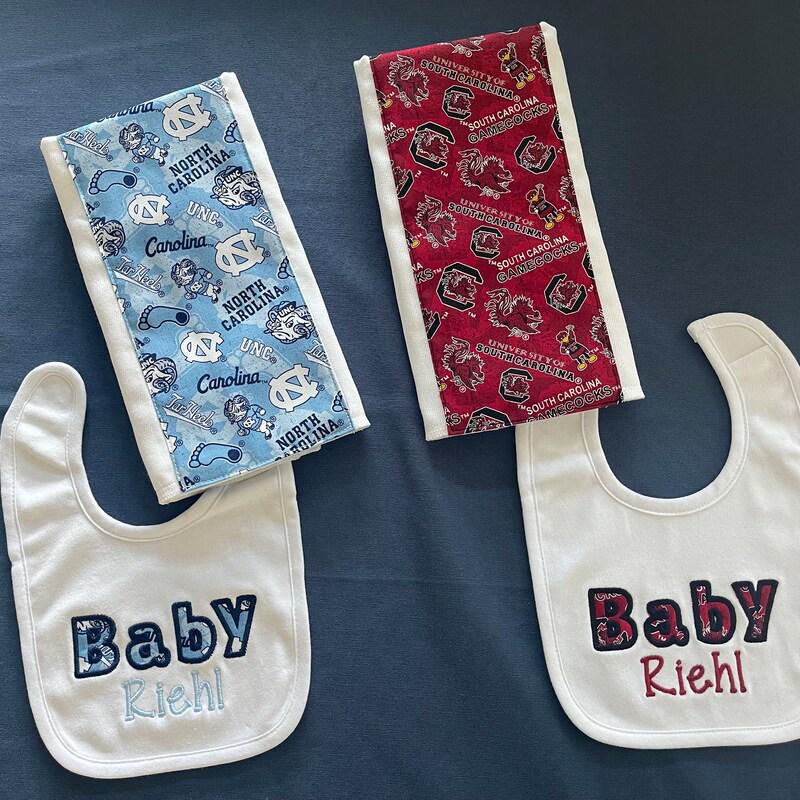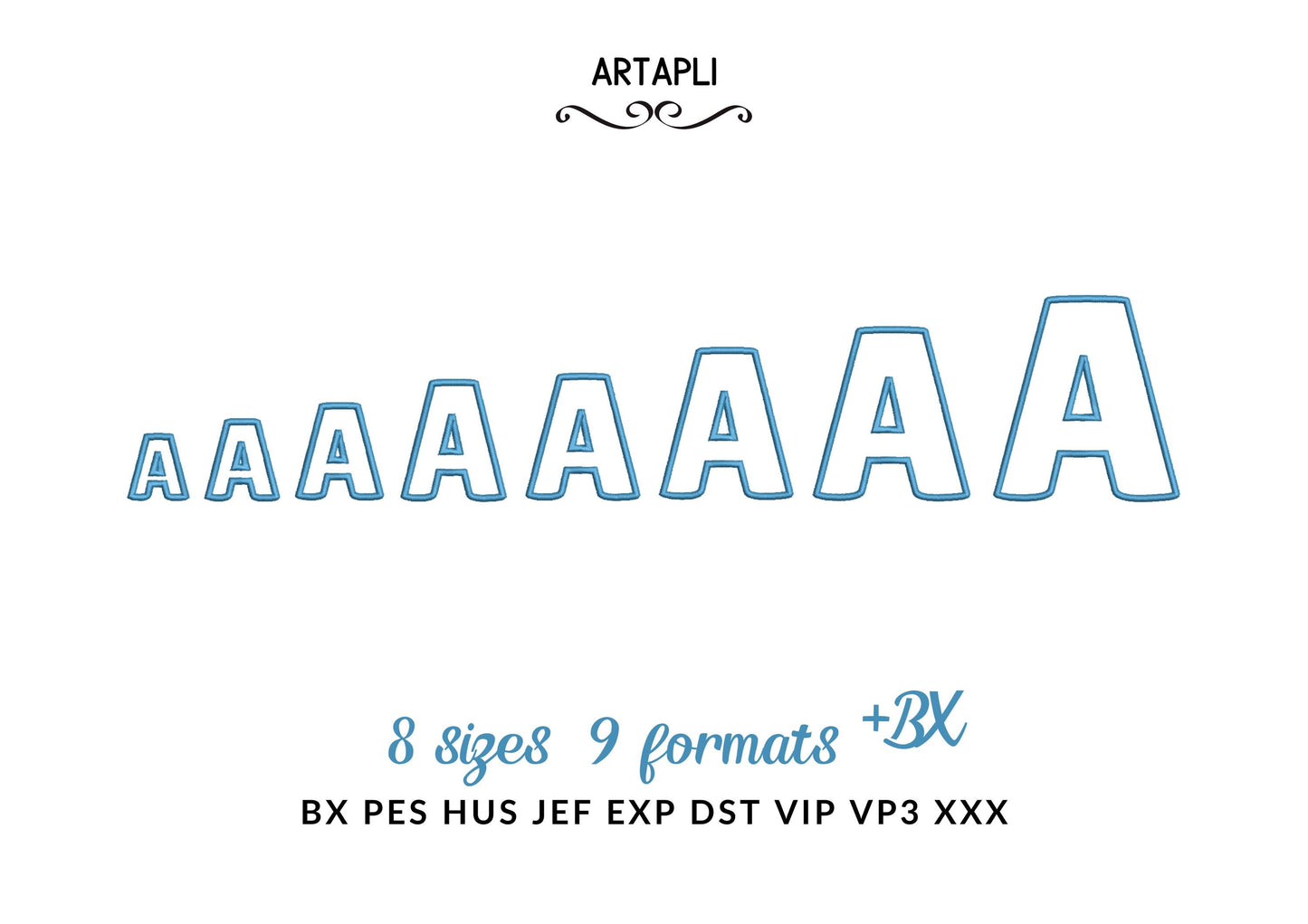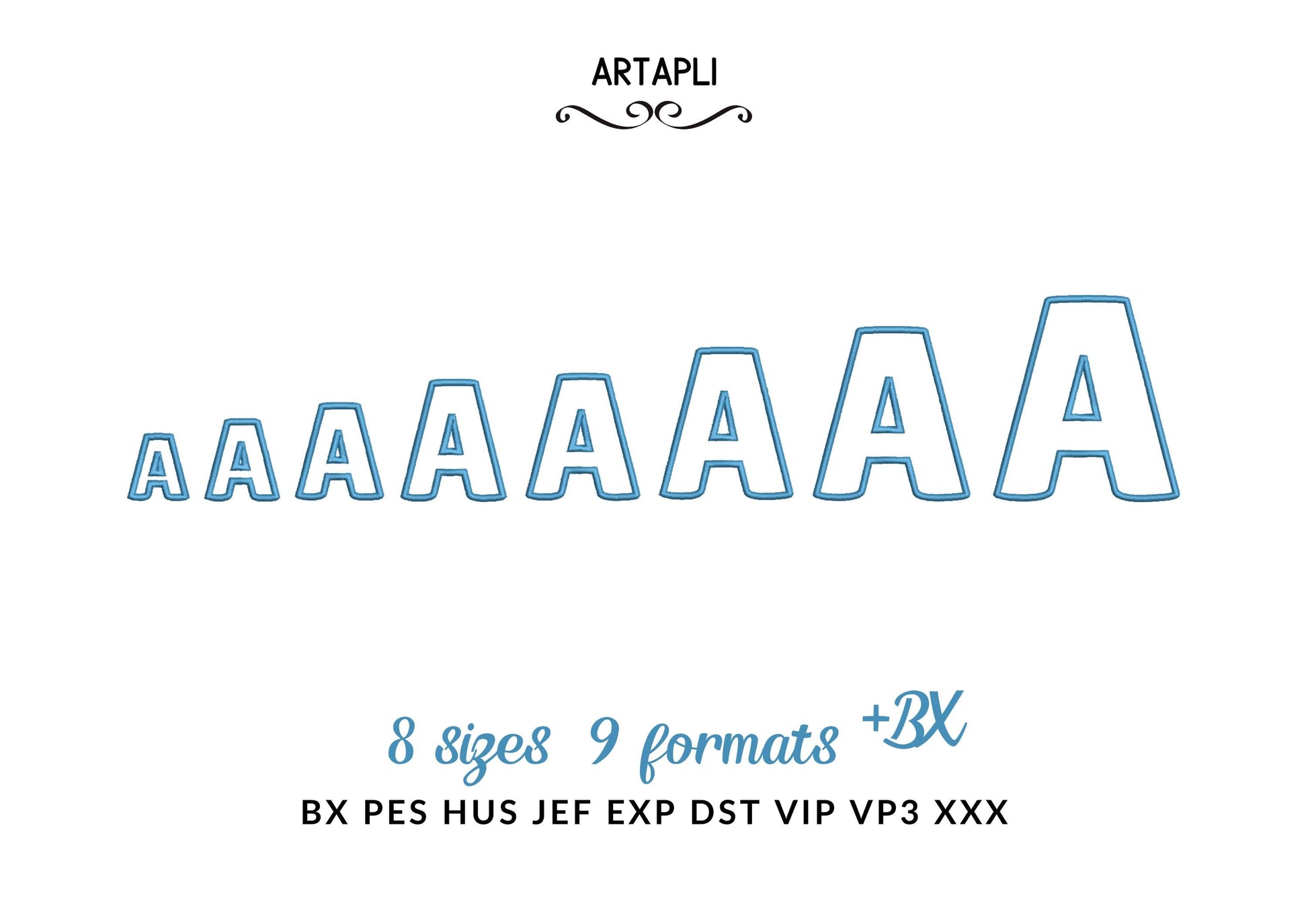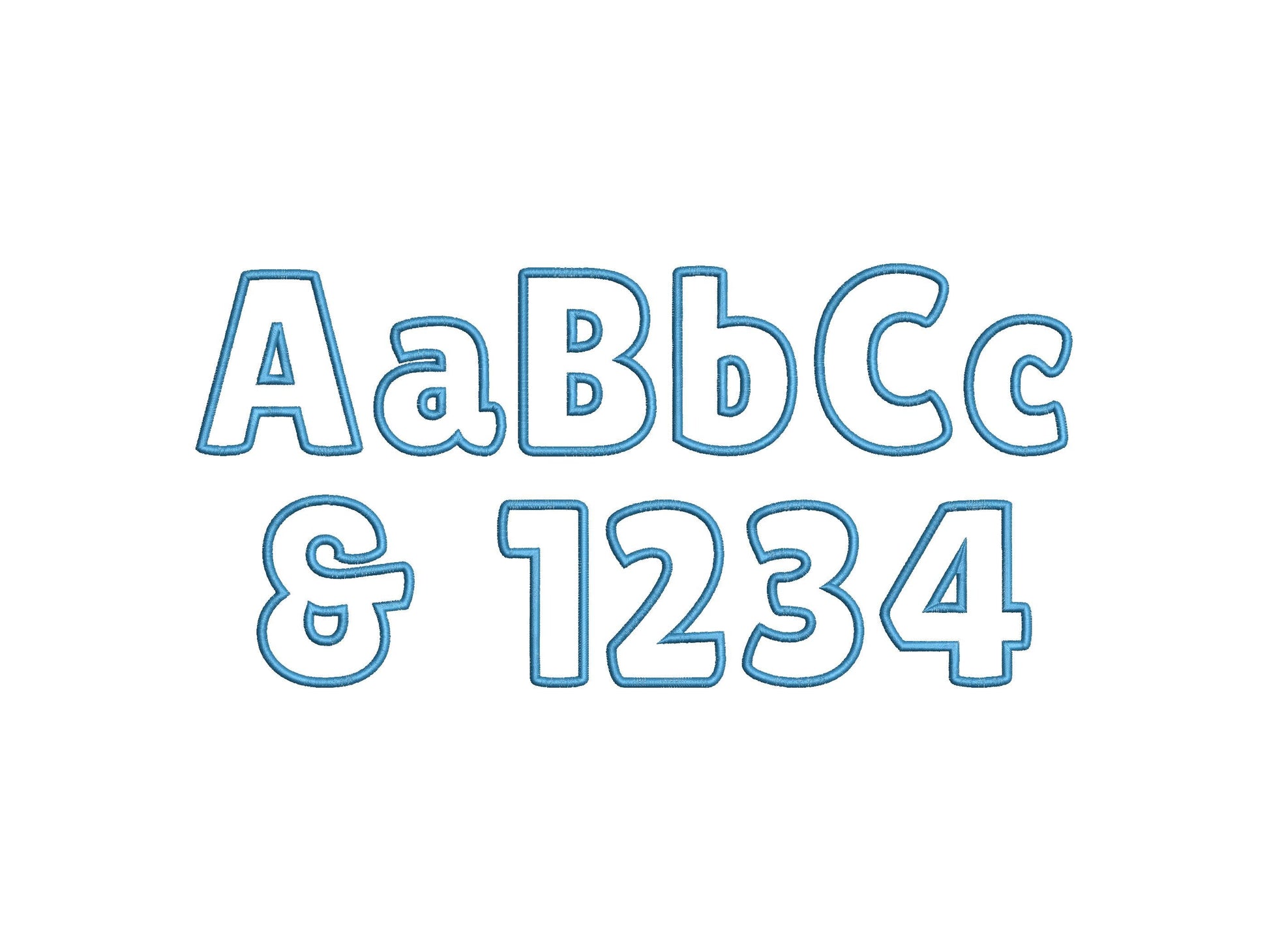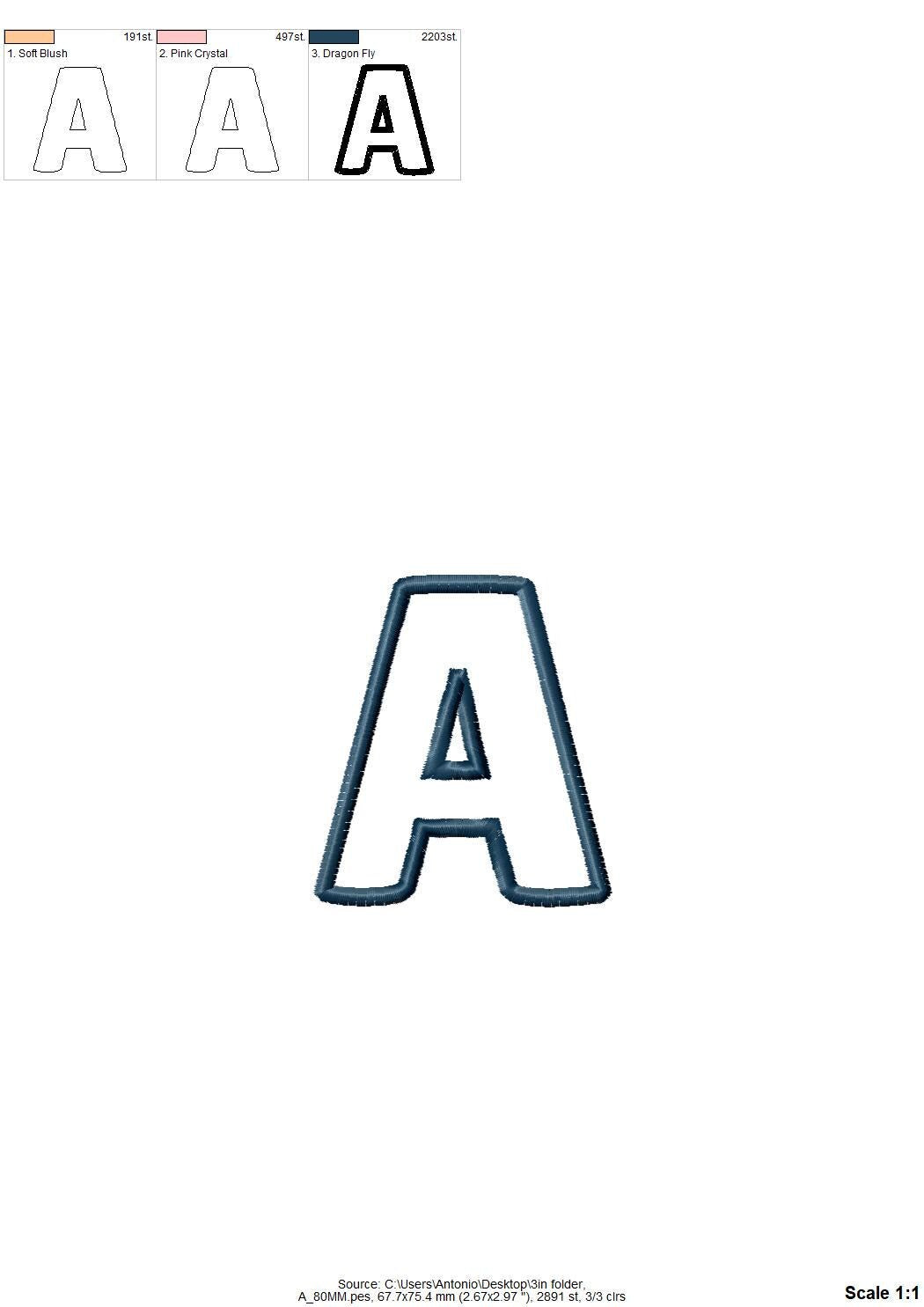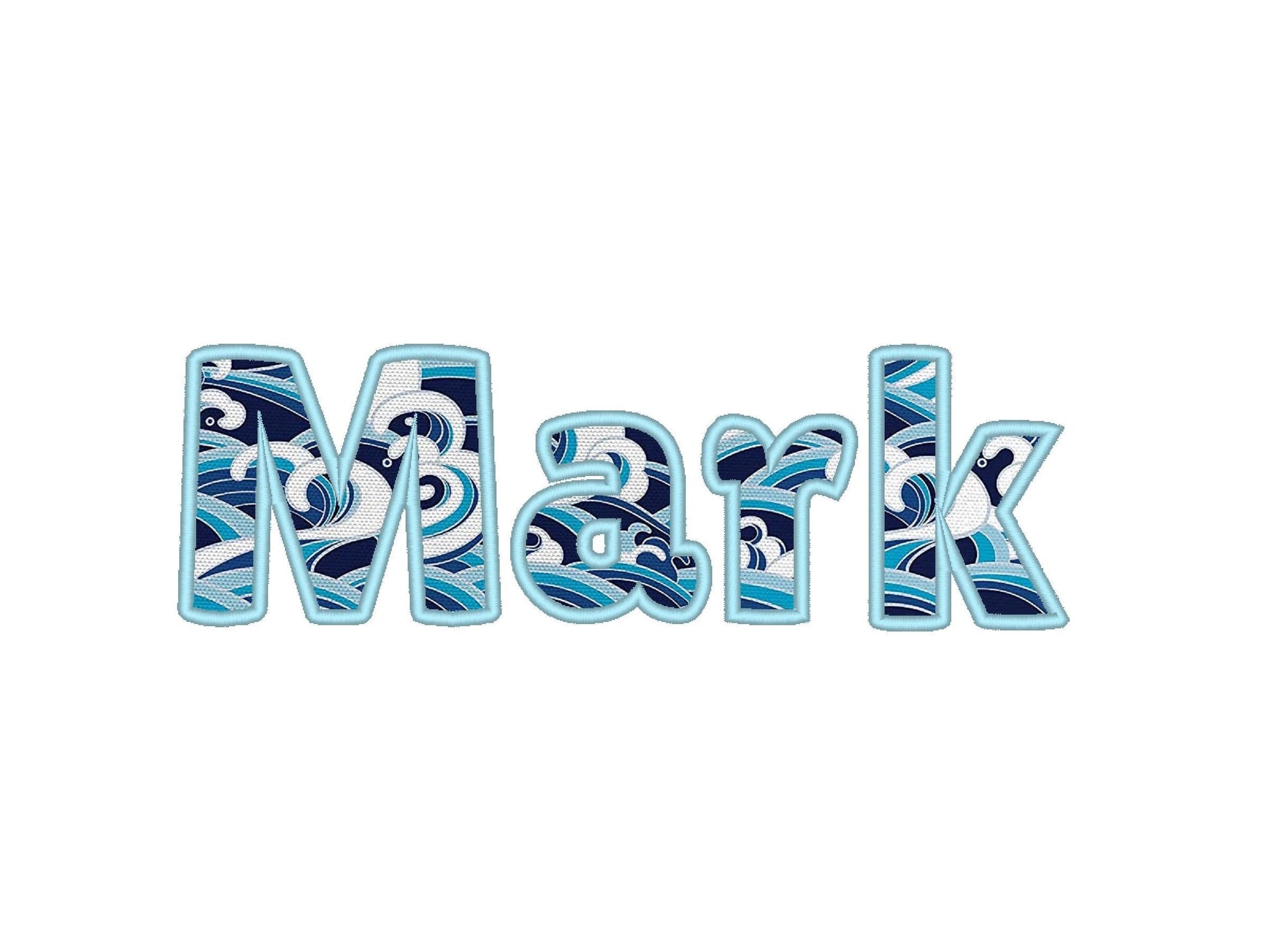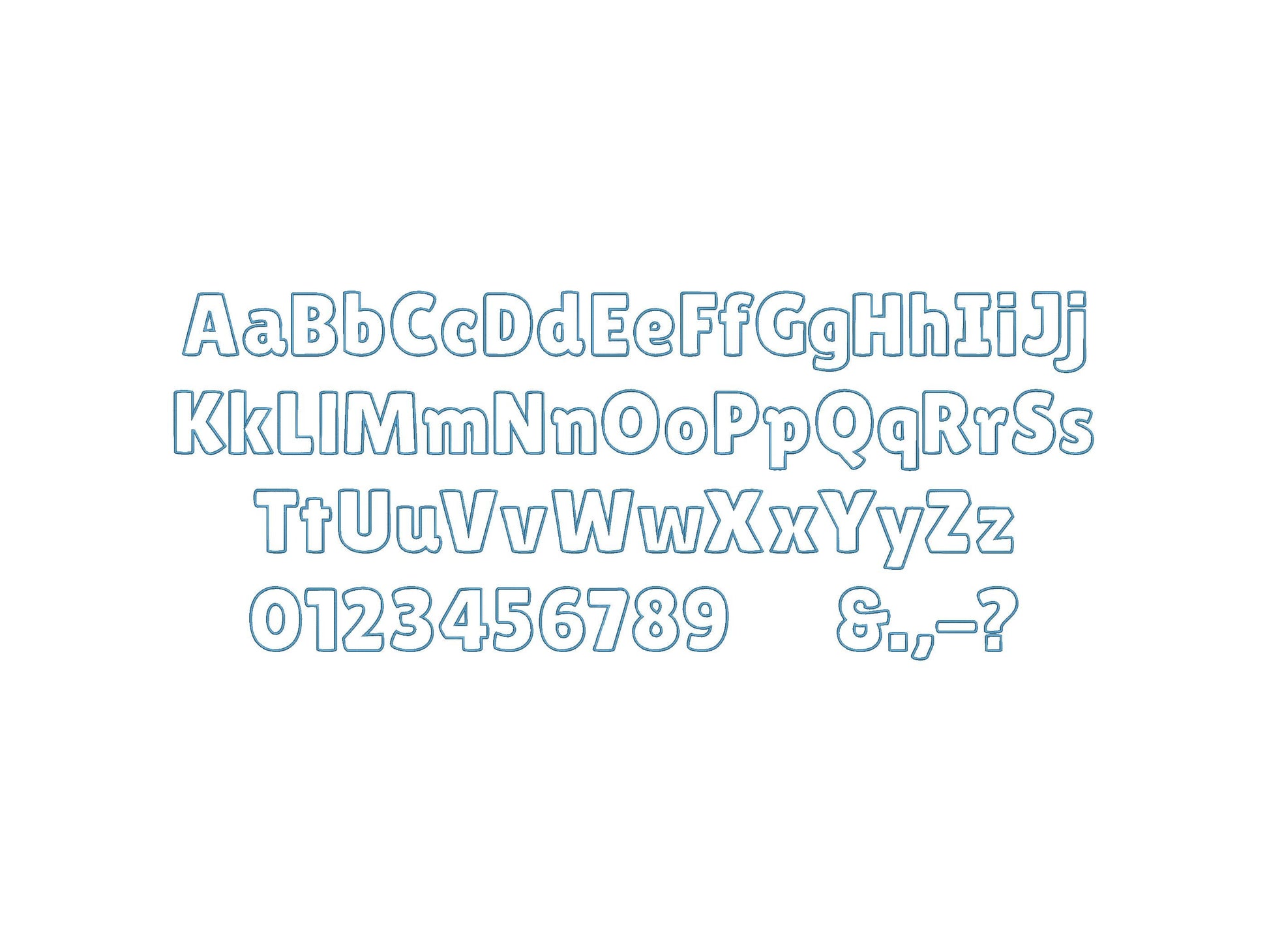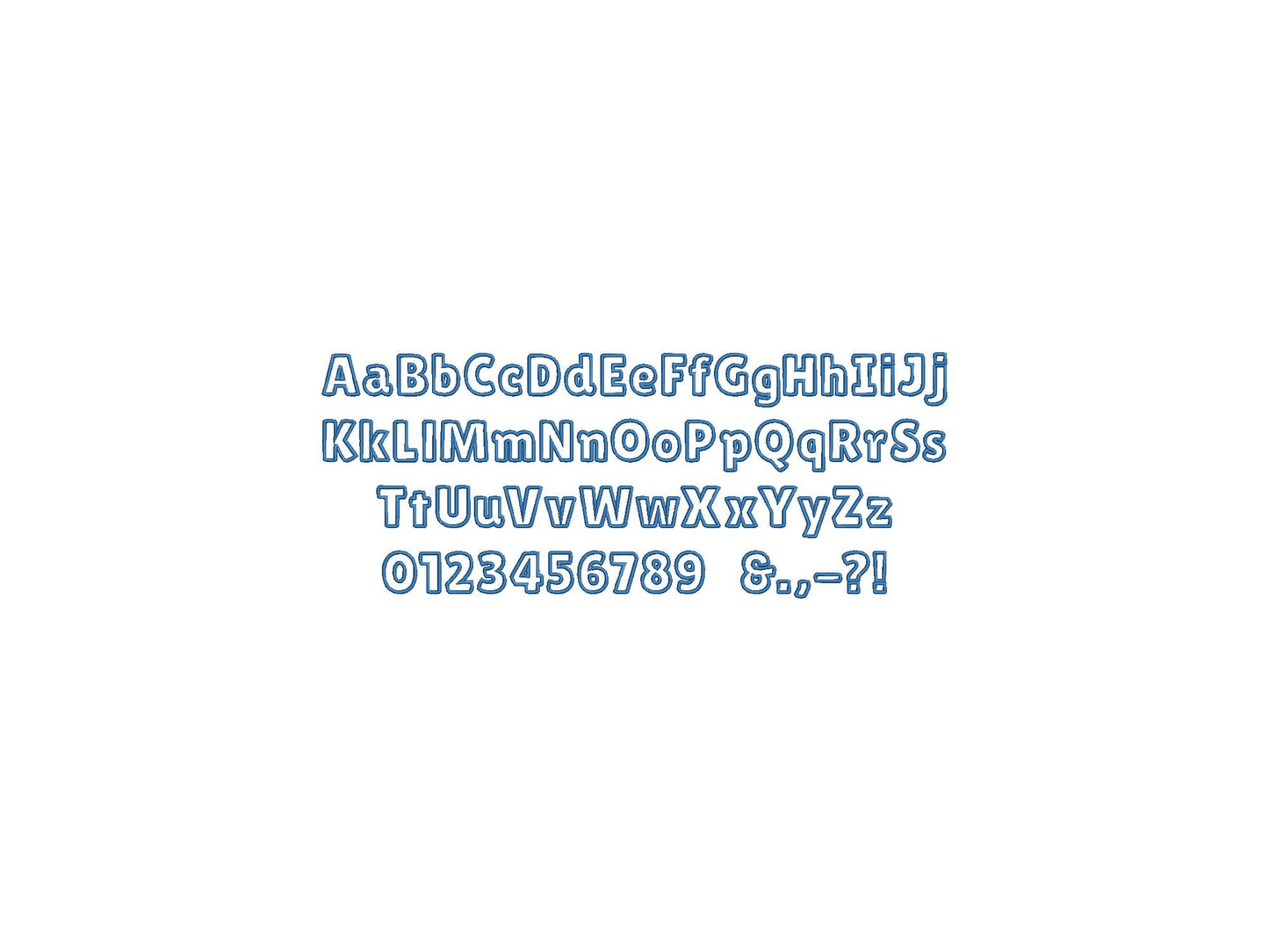
Mark Font Applique
Monogram Font Applique machine embroidery designs wide satin outline alphabet monogram letters numbers many sizes 1.5 up to 4.8 inch, and BX
Punctuation included.